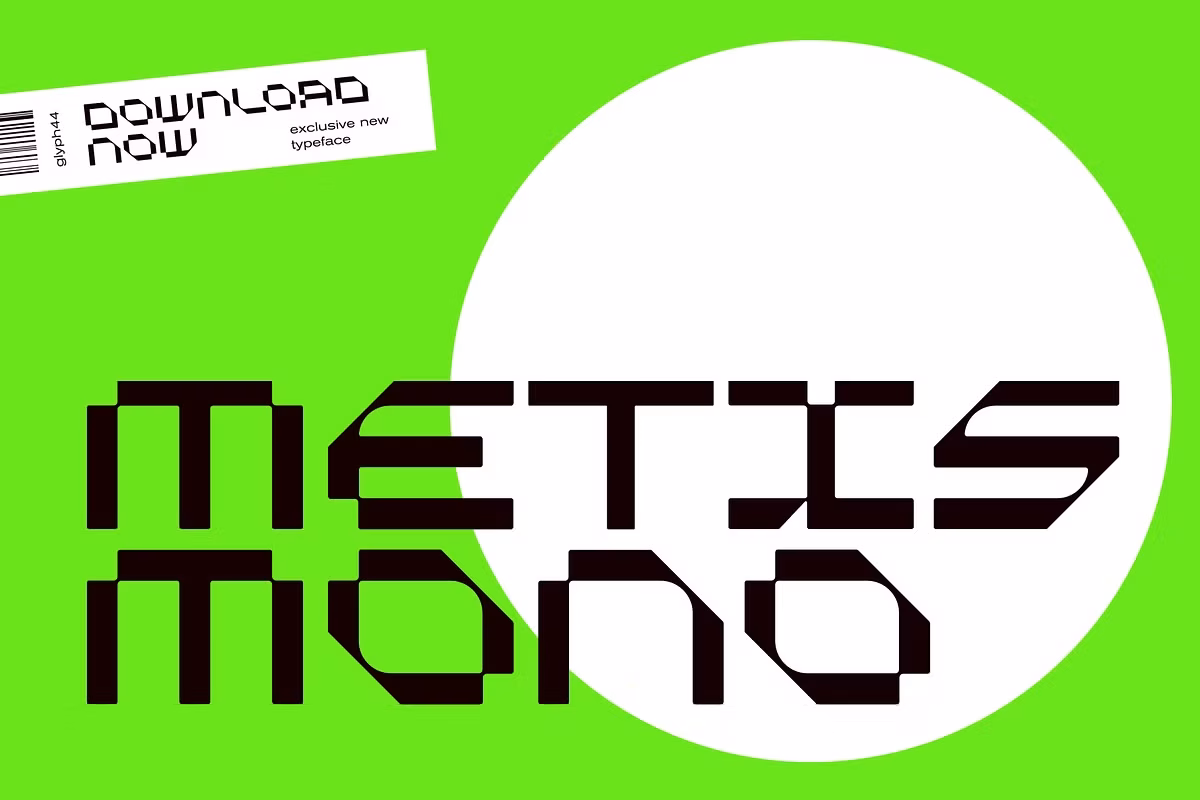
Metis Mono | Space Modern Font Free Download
Metis Mono | Space Modern Font Free Download is a sleek, monospaced typeface with futuristic appeal and clean geometry, perfect for tech-forward design. With its minimalistic structure and space-age influence, Metis Mono is ideal for coding themes, sci-fi branding, digital interfaces, UI/UX design, posters, and tech product packaging.
Built with consistent spacing and a modern aesthetic, Metis Mono | Space Modern Font Free Download balances precision with visual character. Its sharp, grid-aligned forms provide clarity and order, while subtle design quirks give it a stylish, cutting-edge vibe—great for futuristic branding and modern editorial use.